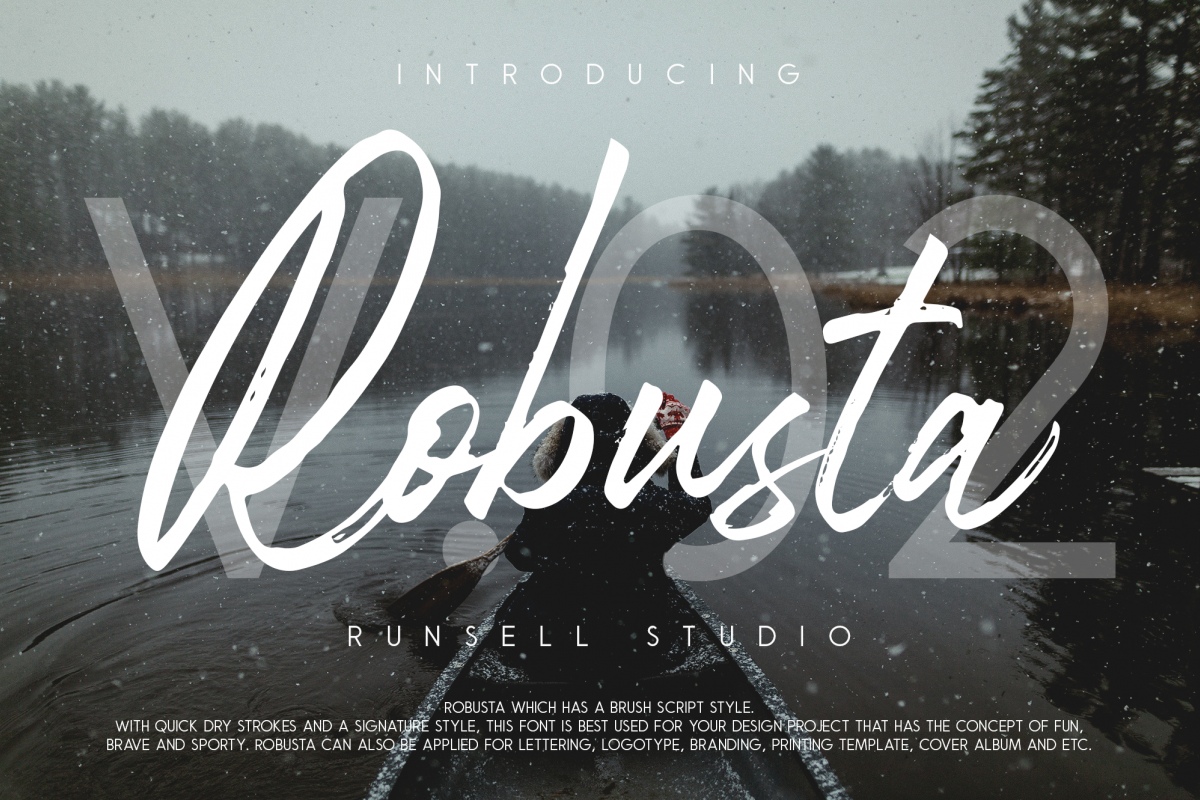
Robusta V.02
Robusta V.02 which has a brush script style. With quick dry strokes and a signature style, this font is best used for your design project that has the concept of fun, brave and sporty.
Robusta V.02 is perfectly suited to signature, stationery, logo,
design and more.
A handwritten script font containing upper and lowercase characters, numerals and a large range of punctuation.
Robusta V.02 font contains following ligatures:
as is us es os ee dd ff ll mn ht oo of tt th st ss and you ond out
"Robusta V.02" font contains following Multilingual:
ŽžŠŒšŸÀÁÂÃÄÅÆÇÈÉÊËÌÍÎÏÐÑÒÓÔÕÖØÙÚÛÜÝßàáâãäåæçèéêëìíîïðñòóôõöøùúûüýÿ